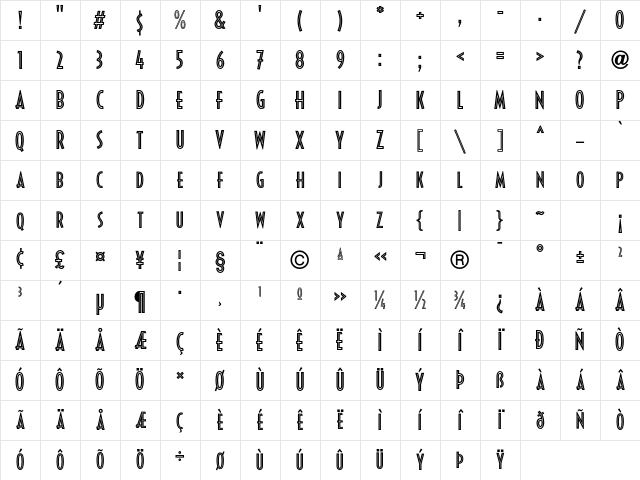
DecoturaICG Inline
Style: Inline
DecoturaICG Inline
Design Context for DecoturaICG
DecoturaICG is built around its visual character rather than neutral utility - its distinctive forms are designed to make an impression at display sizes.
Font Pairing: Pair with a clean neutral sans-serif for body copy to let DecoturaICG's character lead without overwhelming the composition.
Pro Tip: Use DecoturaICG exclusively at display sizes - it was designed to be seen, not read at length. Let a neutral companion handle body copy.